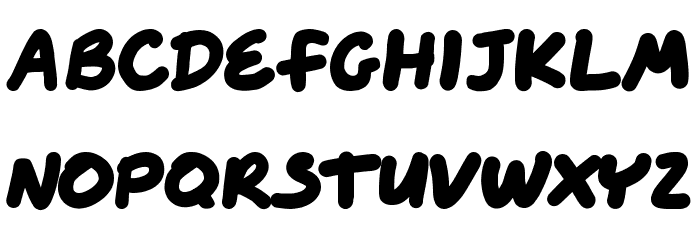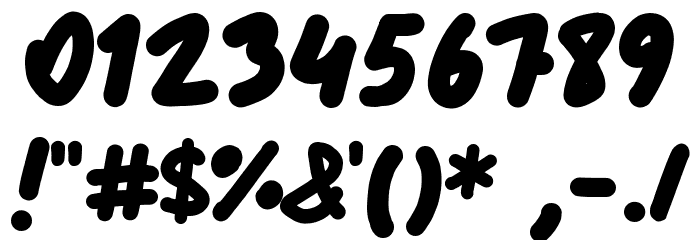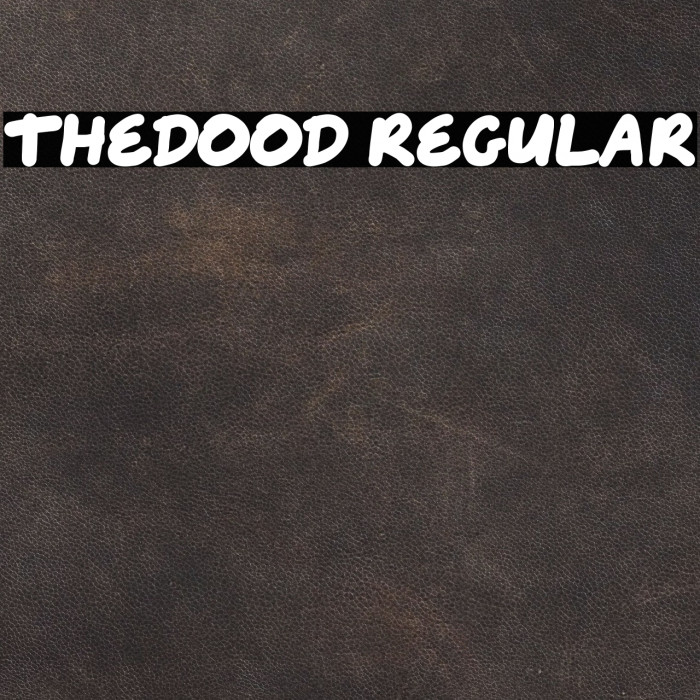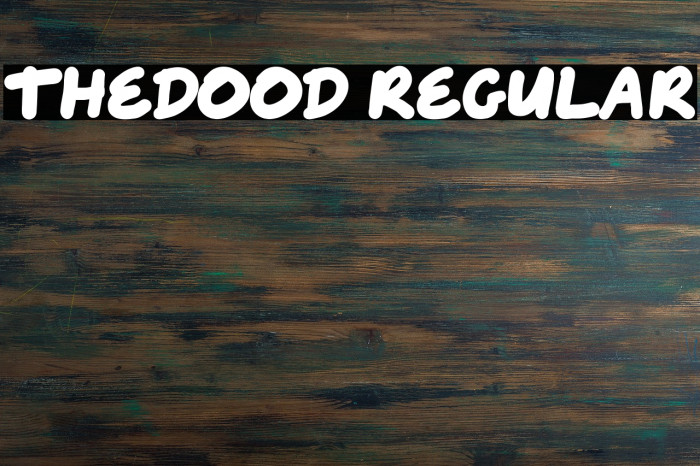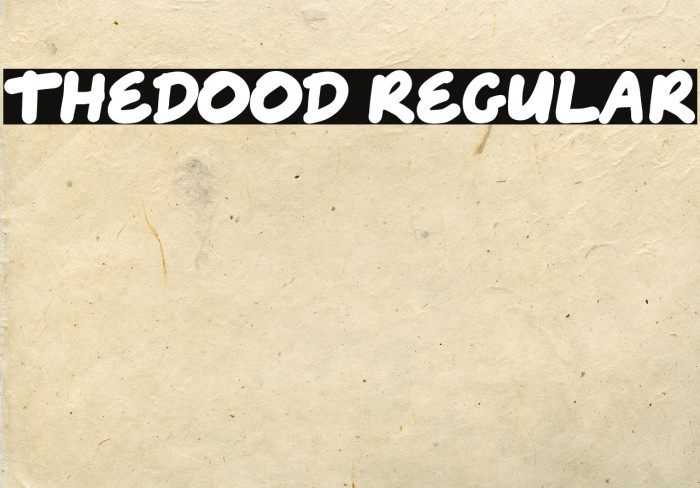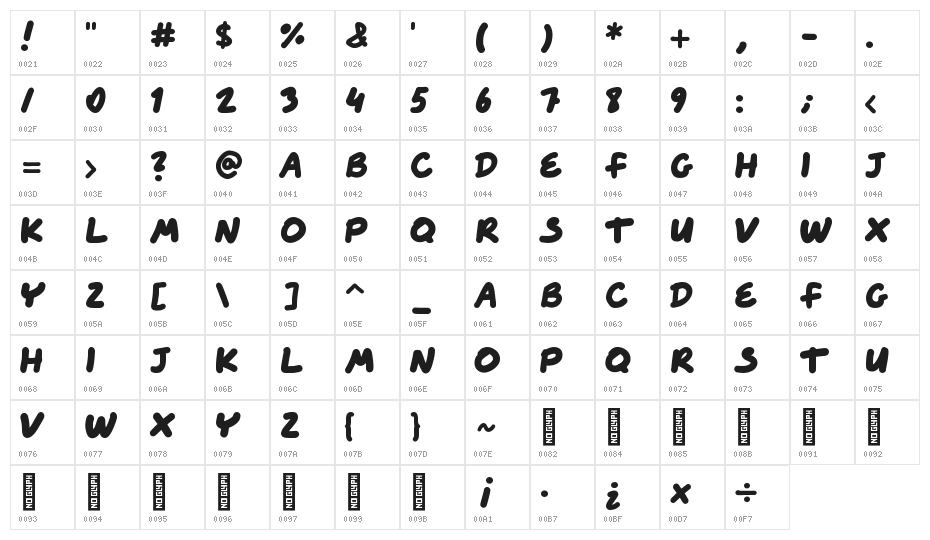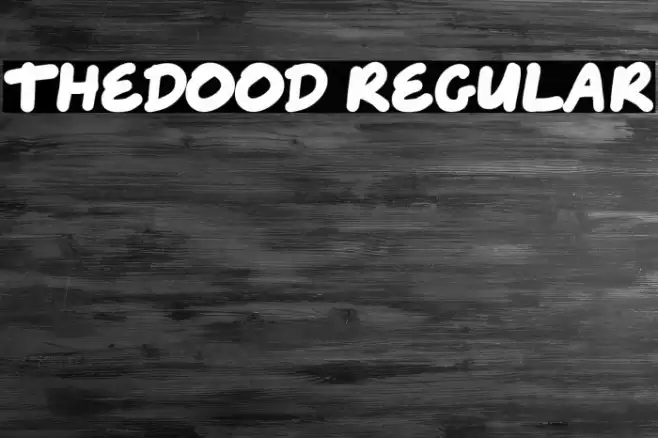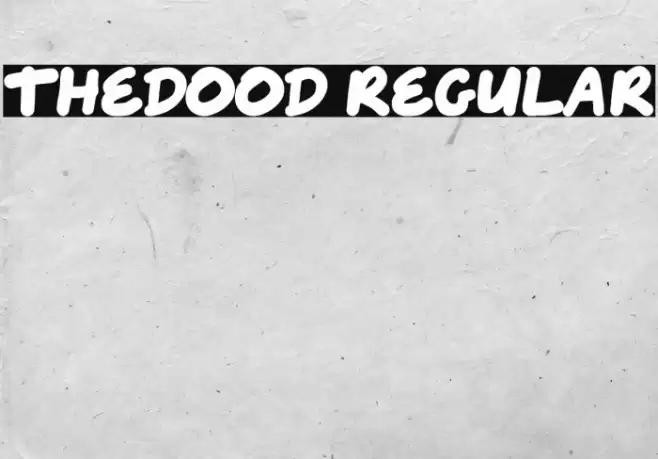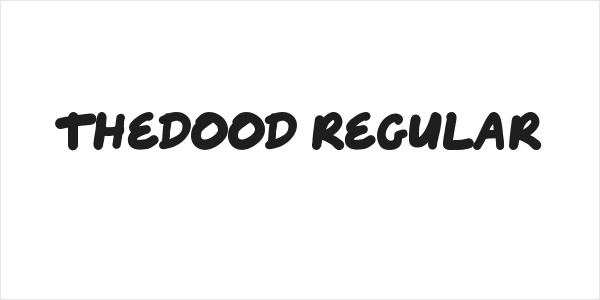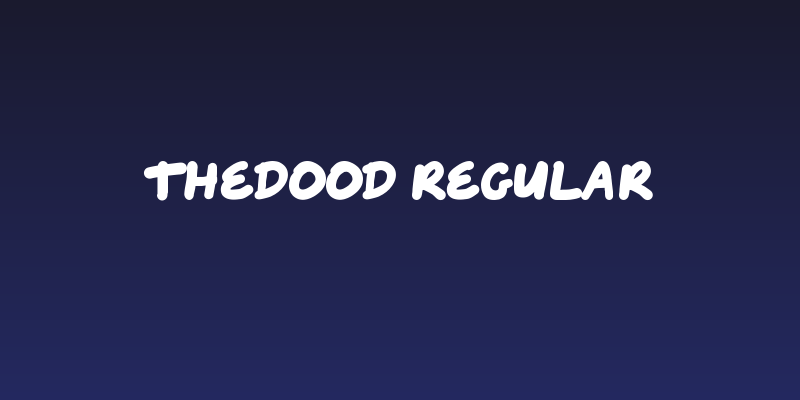
theDood Regular Font
This font features a bold and playful handwritten style, characterized by its thick, rounded strokes and smooth curves. The letters are slightly slanted, giving a dynamic and energetic feel. The uppercase and lowercase letters maintain a consistent weight, contributing to a cohesive appearance. The numerals and special characters follow the same design principles, ensuring uniformity across all glyphs. This font exudes a casual and friendly vibe, making it suitable for projects that require a personal touch.
A bold, playful handwritten font with rounded strokes and smooth curves.
- Proposed Projects: Ideal for children's books, greeting cards, playful branding, and social media graphics.
- Overall Style: Playful